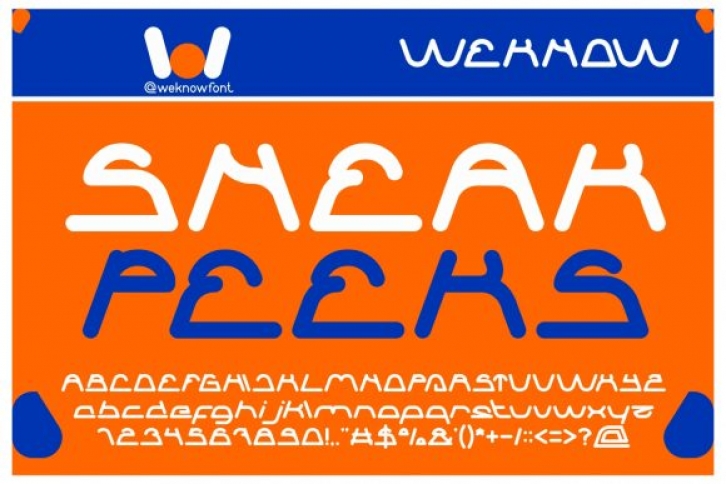
Sneak Peeks is a modern display font that is readable, bold and stylish. It is defined by cool vibes and is perfect for fashion branding or editorial designs. Add it confidently to your projects, and you will love the results.